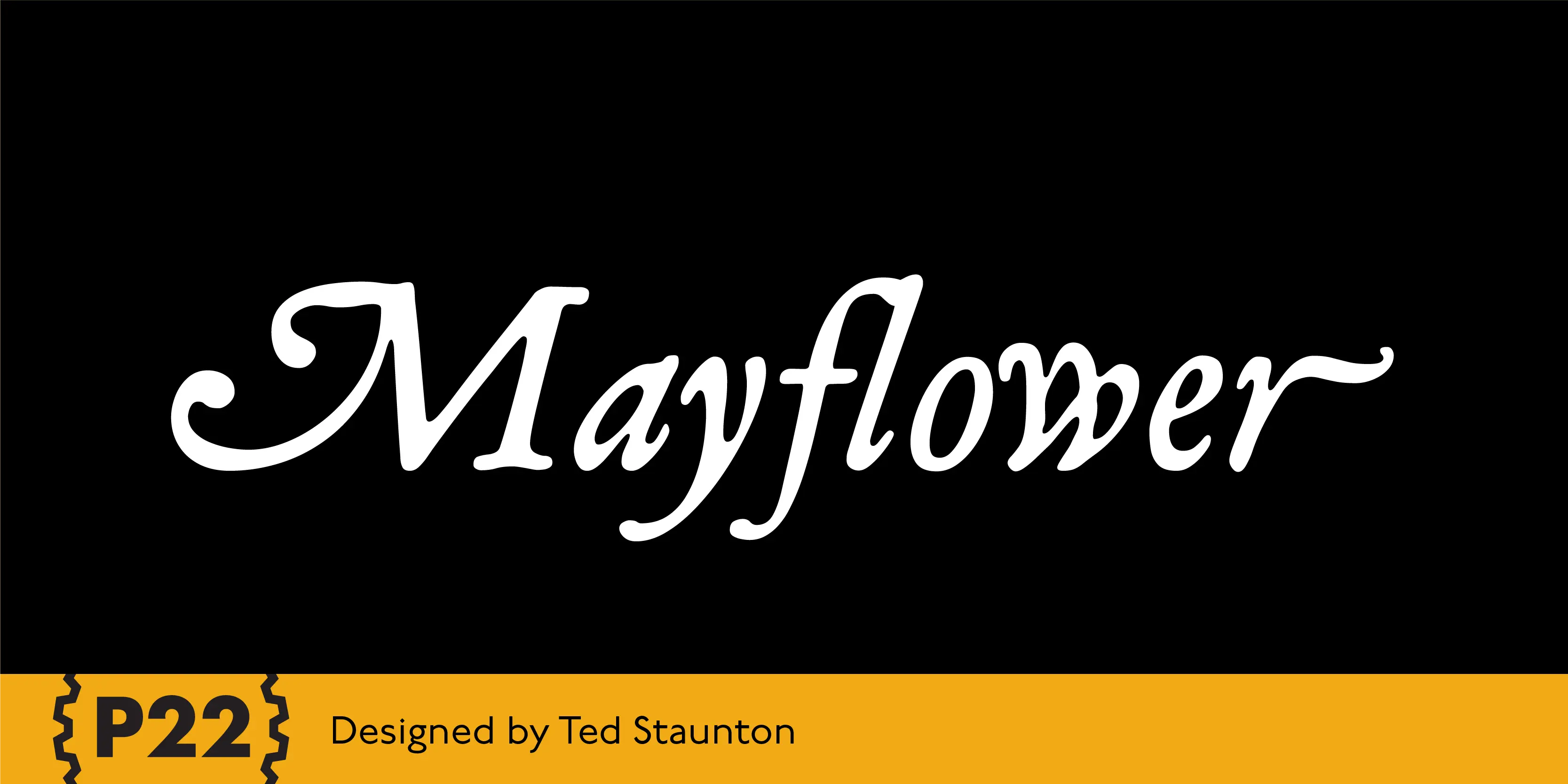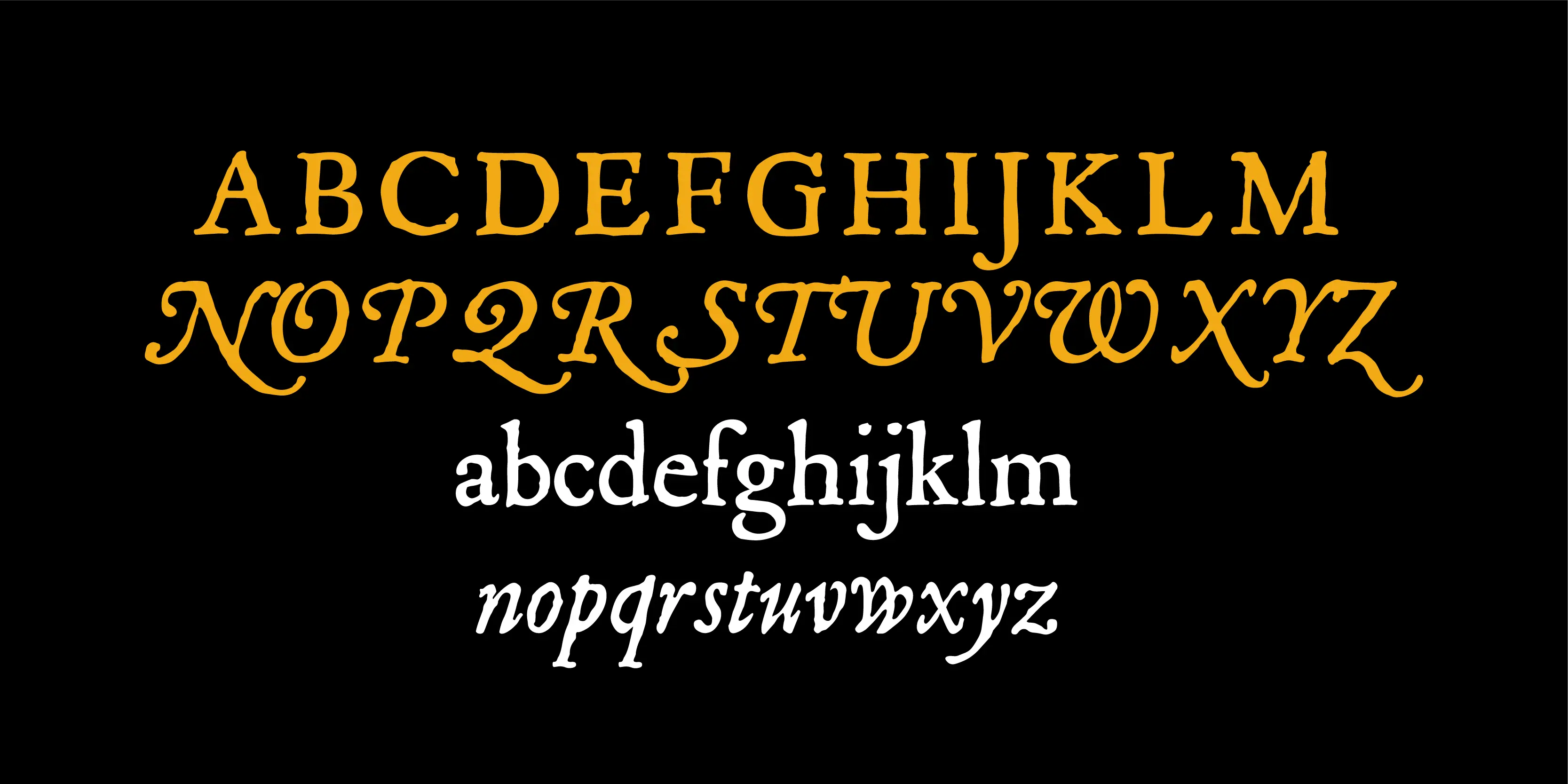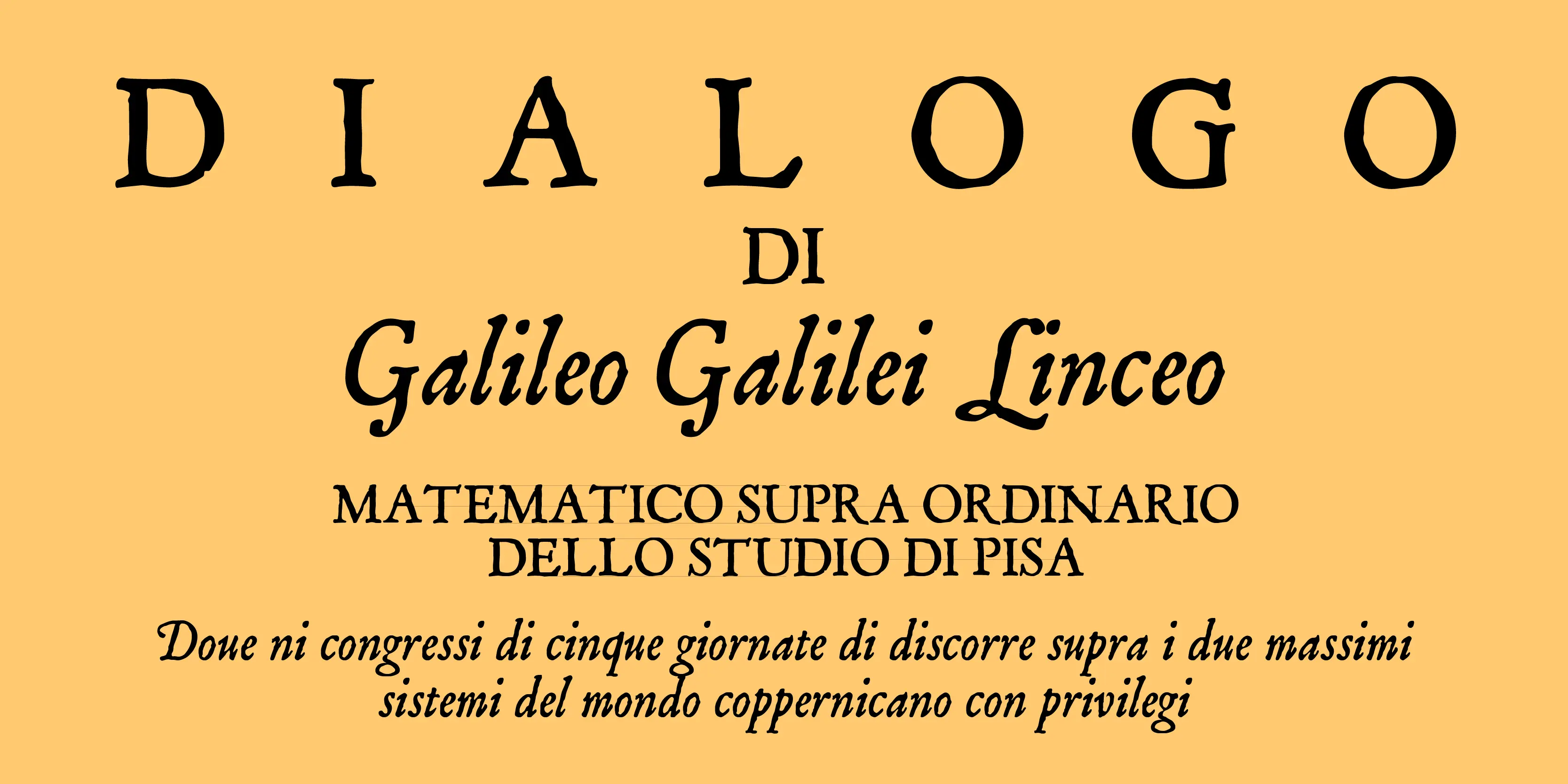
Mayflower Font Family
• Mayflower Regular
• Mayflower Regular Italic
Mayflower
P22 Mayflower is a classical Roman font taken from a Bible of 1610, the edition likely carried to America by the pilgrims on the Mayflower. Good for period reproductions, with its companion italic.